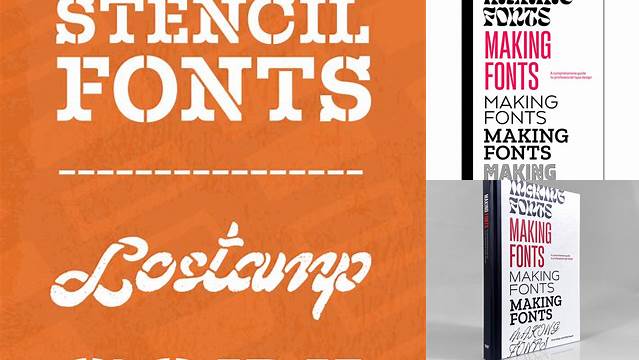
Cool Stencil Fonts: A Guide To Styles And Uses
Hey guys! Ever needed that perfect stencil font for your project? You know, something that screams industrial chic, military precision, or maybe even a cool, urban vibe? Stencil fonts are super versatile and can add a unique touch to anything from logos and posters to websites and even crafts. But with so many options out there, finding the right one can feel like searching for a needle in a haystack. That's why we've put together this comprehensive guide to help you navigate the world of stencil fonts. We'll explore what makes a font a stencil font, the different styles available, and where you can find some awesome ones. We'll also dive into how to use them effectively in your designs. So, buckle up and get ready to discover the coolest stencil fonts out there!
The defining characteristic of stencil fonts lies in their disconnected letterforms. Imagine the physical stencils used for spray painting – these fonts mimic that design by incorporating breaks or gaps within the letters. This isn't just a stylistic choice; it's a functional one rooted in the very nature of stenciling. Back in the day, these gaps were essential to hold the shapes of the letters together when cutting them out of a material like metal or cardboard. Without these breaks, letters like 'O' or 'B' would simply fall apart, leaving you with empty holes instead of legible characters. So, the next time you see a stencil font, remember it's not just a cool design – it's a nod to a practical constraint that shaped typography. This history gives stencil fonts a unique character, often associated with industrial settings, military applications, and DIY projects. But their appeal extends far beyond these traditional uses. Their distinctive look can bring a touch of edginess, a sense of history, or even a playful vibe to your designs. The key is understanding the different styles of stencil fonts available and choosing the one that best suits your project's needs. We'll get into those different styles in just a bit, so you can start envisioning how to incorporate these cool fonts into your next masterpiece.
Okay, so what exactly makes a font a stencil font? It's more than just having a few gaps in the letters, although that's definitely the most noticeable feature! At its core, a stencil font simulates the look of lettering created using a physical stencil. Think about those classic military stencils or the ones used for labeling crates and equipment. The key is that the letterforms have breaks in them – these breaks are strategically placed to connect the different parts of the letter, mimicking how a real stencil would need to be constructed. Without these connections, the inner parts of letters like 'O', 'P', or 'A' would simply fall out. So, these gaps aren't just decorative; they're fundamental to the font's functionality and aesthetic. This inherent design constraint gives stencil fonts a distinctive and recognizable appearance. They often evoke a sense of industrial strength, practicality, and a no-nonsense attitude. But stencil fonts aren't just for serious stuff! They can also add a touch of cool and edgy style to your projects. Think about how they're used in streetwear branding, urban art, and even in more playful designs. The beauty of stencil fonts lies in their versatility. They can be bold and impactful, subtle and sophisticated, or anything in between. The breaks in the letterforms can be clean and sharp, or they can be more rounded and organic, depending on the overall style of the font. Some stencil fonts have very pronounced gaps, while others have more subtle breaks that are barely noticeable at first glance. This variety allows you to choose a stencil font that perfectly matches the tone and message of your design. So, when you're looking for a font that has a unique and slightly unconventional feel, a stencil font might just be the perfect choice. It's a font with a history, a purpose, and a whole lot of style!
Now, let's talk about the different flavors of stencil fonts out there! You might be surprised to learn that stencil fonts aren't just a one-size-fits-all kind of deal. There's a whole spectrum of styles, each with its own unique personality and vibe. Understanding these different styles will help you choose the perfect font for your project. First up, we have the classic industrial stencil fonts. These are the fonts that immediately come to mind when you think of stencils – bold, blocky, and no-frills. They're inspired by the lettering you'd see on shipping crates, military equipment, and factory floors. These fonts are all about practicality and legibility, and they often have a strong, masculine feel. Think of them as the workhorses of the stencil font world. Then there are the military-inspired stencil fonts. These fonts share the same utilitarian roots as the industrial styles, but they often have a slightly more refined look. They might have sharper angles, more consistent stroke widths, and a general sense of precision. These fonts are perfect for designs that need to convey authority, reliability, and a sense of history. Moving away from the purely functional, we have decorative stencil fonts. This is where things get really interesting! Decorative stencil fonts take the basic stencil concept and run wild with it. They might incorporate unusual shapes, intricate patterns, or unexpected breaks in the letterforms. These fonts are all about making a statement, and they can add a touch of whimsy, elegance, or even a bit of rebellion to your designs. Within the decorative category, you'll find sub-styles like grunge stencil fonts, which have a distressed, rough-and-tumble look, and modern stencil fonts, which feature clean lines and minimalist designs. There are also script stencil fonts, which attempt to mimic the fluidity of handwriting while still adhering to the stencil principle of connected letter parts. These fonts can be tricky to pull off, but when done well, they can add a unique and sophisticated touch to your projects. No matter what style you choose, remember that the key to using stencil fonts effectively is to consider the overall message and tone of your design. A bold industrial stencil font might be perfect for a construction company's logo, but it wouldn't be the best choice for a wedding invitation. A delicate decorative stencil font could add a touch of elegance to a packaging design, but it might look out of place on a technical manual. So, explore the different styles, experiment with different fonts, and have fun finding the perfect stencil font for your next project!
Okay, you've got your perfect stencil font – now what? Slapping it on your design and calling it a day isn't always the best approach. To really make your stencil font shine, you need to know how to use it effectively. Here are some tips and tricks to help you do just that. First and foremost, consider the context. Stencil fonts have a strong personality, and they don't work well in every situation. They're typically associated with industrial, military, or urban themes, so they're a natural fit for designs that evoke those kinds of vibes. But they can also be used in more unexpected ways, like adding a touch of edginess to a modern design or creating a vintage-inspired look. The key is to think about the overall message you're trying to convey and whether a stencil font is the right tool for the job. If you're not sure, try experimenting with different fonts and see what feels best. Another important factor to consider is legibility. Stencil fonts, by their very nature, have breaks in the letterforms, which can sometimes make them harder to read than traditional fonts. This is especially true for smaller sizes or in situations where there's a lot of text. To ensure your message is clear, choose a stencil font that's relatively easy to read, especially for body text. You might also want to increase the letter spacing or line height to improve legibility. For headlines and logos, you have a bit more leeway to experiment with more decorative or unconventional stencil fonts, but always make sure your message is still clear and understandable. Pairing is another crucial aspect of using stencil fonts effectively. Because stencil fonts are so distinctive, they can sometimes clash with other fonts. A good rule of thumb is to pair a stencil font with a simpler, more neutral font. A clean sans-serif font, for example, can provide a nice contrast to the ruggedness of a stencil font. You can also try pairing different styles of stencil fonts – for example, a bold industrial stencil for a headline with a more delicate stencil script for the body text. The key is to create a visual hierarchy and ensure that the fonts complement each other rather than competing for attention. Color and background can also play a significant role in how your stencil font looks. Stencil fonts often look great when used in contrasting colors – for example, a white stencil font on a dark background, or a bold color on a neutral background. You can also experiment with using stencil fonts as cutouts, revealing the background color or pattern through the breaks in the letterforms. This can create a striking and unique visual effect. Finally, don't be afraid to experiment and break the rules! These tips are just guidelines, and the best way to learn how to use stencil fonts effectively is to try different things and see what works. Play around with different fonts, sizes, colors, and layouts, and don't be afraid to push the boundaries of what's expected. With a little practice and creativity, you can use stencil fonts to create some truly amazing designs.
So, there you have it, folks! We've taken a deep dive into the world of fonts that look like stencils, exploring what makes them unique, the different styles available, where to find them, and how to use them effectively. Hopefully, this guide has given you a solid understanding of these versatile and stylish fonts, and you're feeling inspired to incorporate them into your own designs. Stencil fonts are more than just a trendy design element; they're a nod to a rich history of practical typography. Their distinctive broken letterforms evoke a sense of industrial grit, military precision, and urban cool. But they're also surprisingly versatile, lending themselves to a wide range of applications, from logos and posters to websites and crafts. Whether you're aiming for a bold and impactful statement or a subtle touch of edginess, there's a stencil font out there that's perfect for your project. Remember, the key to using stencil fonts effectively is to consider the context, ensure legibility, and choose the right pairing fonts. Don't be afraid to experiment with colors, backgrounds, and layouts to create unique and visually striking designs. And most importantly, have fun! Typography is a powerful tool, and stencil fonts are a particularly expressive and dynamic option. So, go ahead and explore the possibilities, push the boundaries, and let your creativity shine. The world of design is your canvas, and stencil fonts are just one of the many exciting colors you can use to bring your vision to life. We hope this guide has been helpful and informative. Now go out there and create something amazing with stencil fonts!